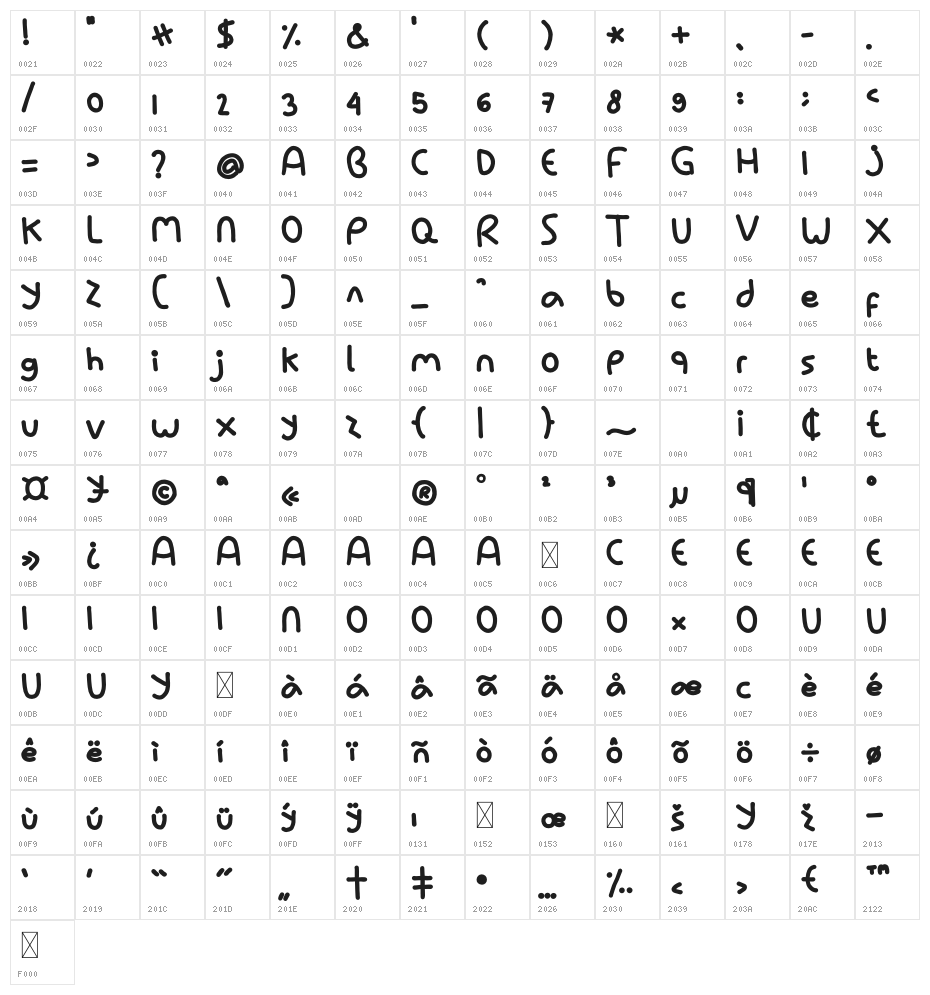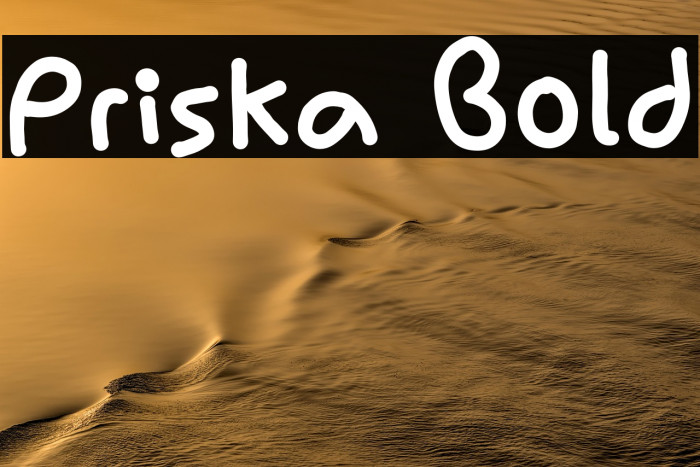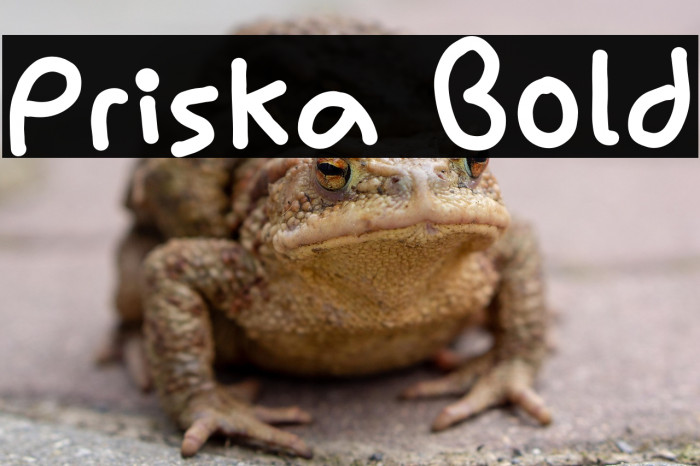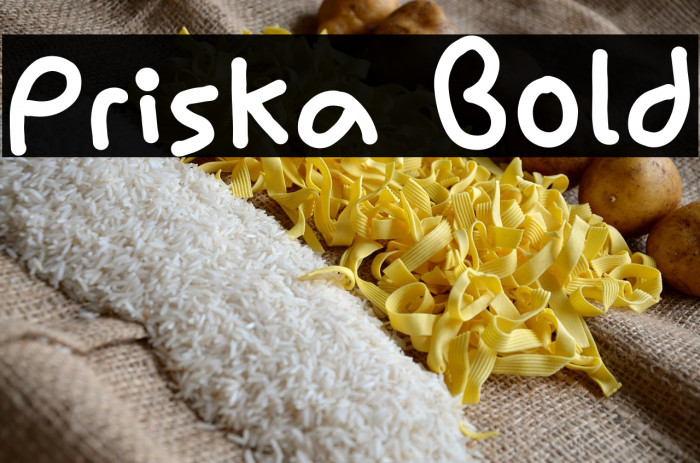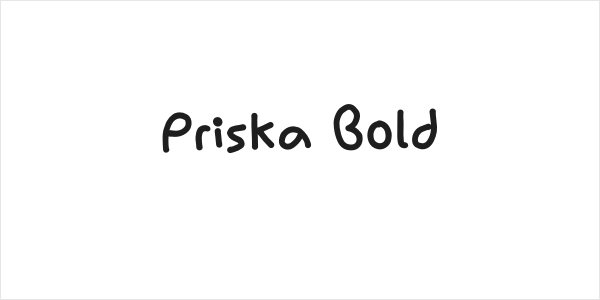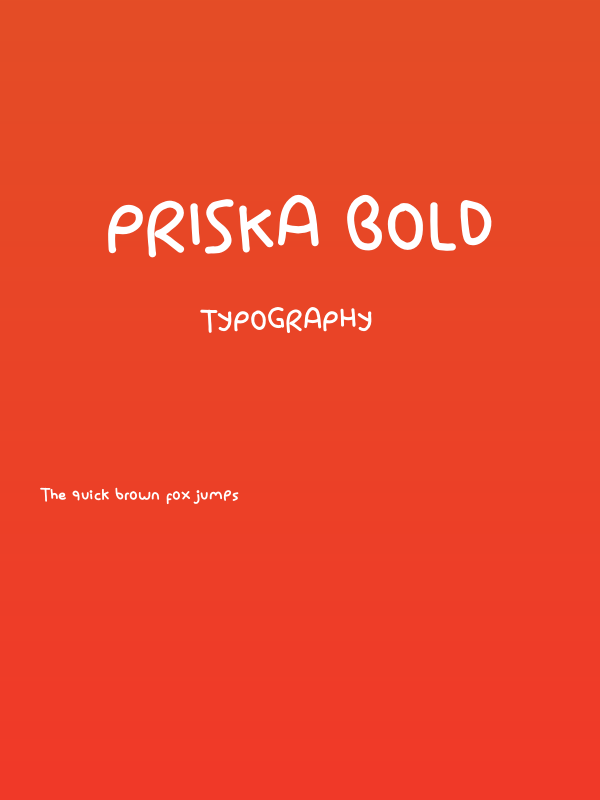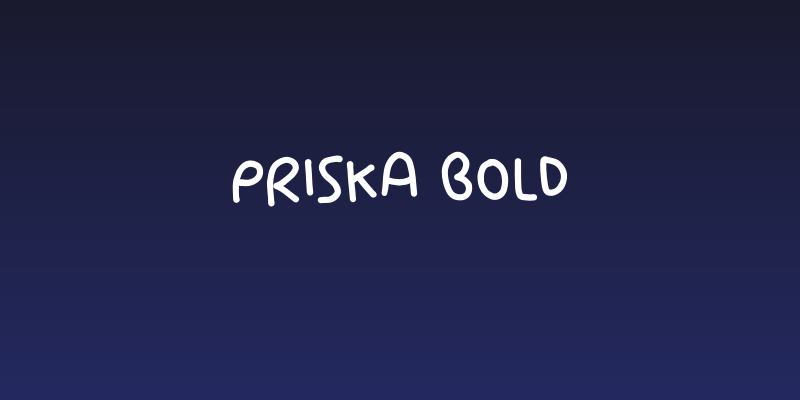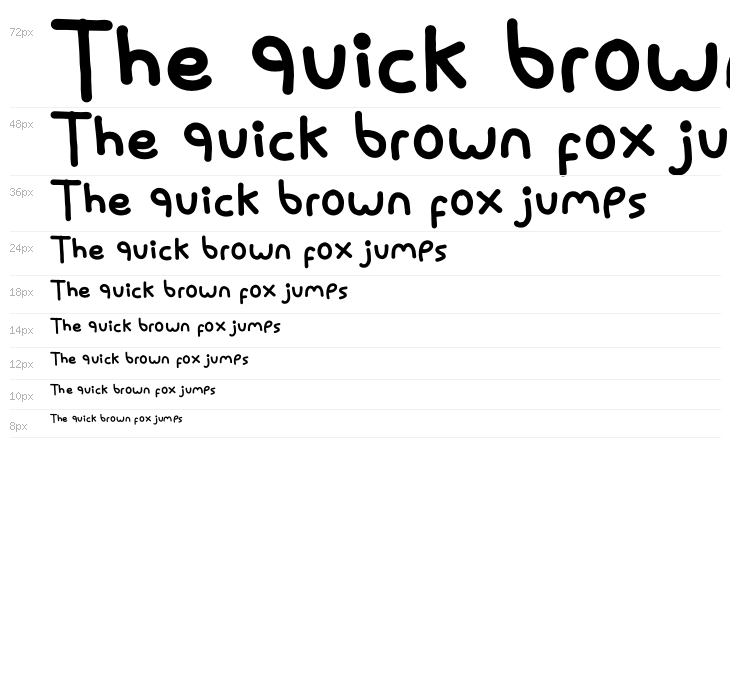
Priska Bold Font
Priska Bold Description
This playful and bold font features rounded edges and a hand-drawn aesthetic, giving it a friendly and approachable look. The characters are slightly irregular, adding to the casual and informal feel. The uppercase and lowercase letters maintain a consistent style, with a uniform thickness throughout. The numbers and special characters are designed to match the overall playful theme, making this font suitable for creative and fun projects. Its boldness ensures good readability while maintaining a unique and distinctive appearance.
| Proposed Projects | Ideal for children's books, playful branding, casual invitations, and creative posters. |